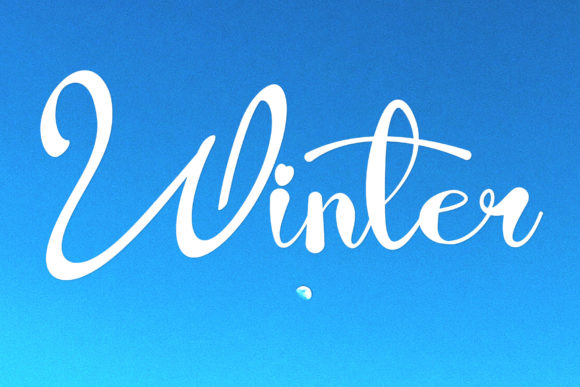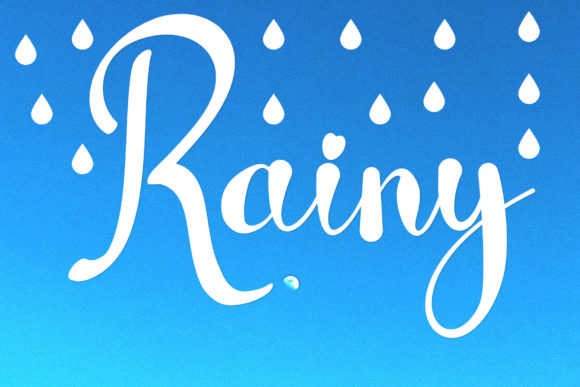
Air Near Font
db-ku.com - Script & Handwritten -- Air Near is a stylish and delicate script font. It will elevate a wide range of crafting ideas, from cards, to branding, labels and much more.